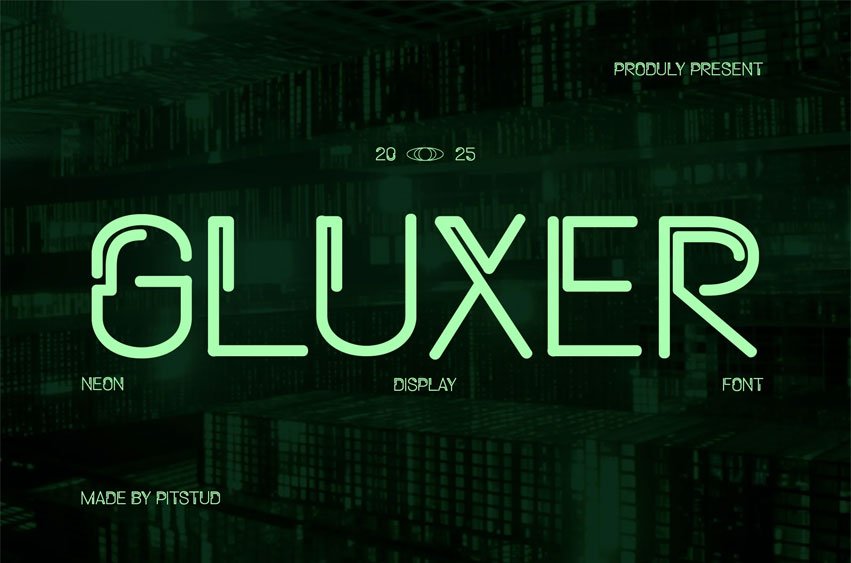
Gluxer Font Neon Futuristic Font is a bold display typeface that infuses projects with vibrant, high-tech energy. Its sleek geometric letterforms and glowing neon lines create a striking sci-fi aesthetic, perfect for branding, tech interfaces, and cyber-inspired visuals.
Crafting gaming interfaces, event posters, or movie titles, Gluxer combines readability with dynamic impact. Its luminous style enhances logos, packaging, website headers, and motion graphics with a futuristic edge.
Font Features
- Futuristic Neon Design: Bold, glowing strokes with geometric precision.
- Complete Character Set: Uppercase, lowercase, numbers, punctuation, symbols.
- OpenType Features: Alternates, ligatures, stylistic sets.
- Multilingual Support: Supports languages like English, Spanish, French, German, and Portuguese.
Gluxer blends futuristic flair with modern precision, making it a versatile choice for branding, marketing, and digital media that demands attention.
- Tech Branding: Create a sleek, innovative image.
- Advertising & Marketing: Shine in bold campaigns.
- Editorial Design: Elevate digital magazine covers.
- Product Packaging: Highlight cutting-edge products.
- Logo Design: Build a distinctive, futuristic identity.